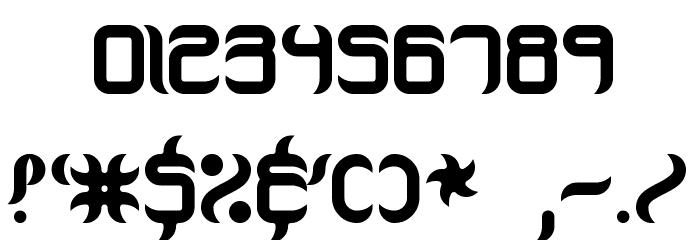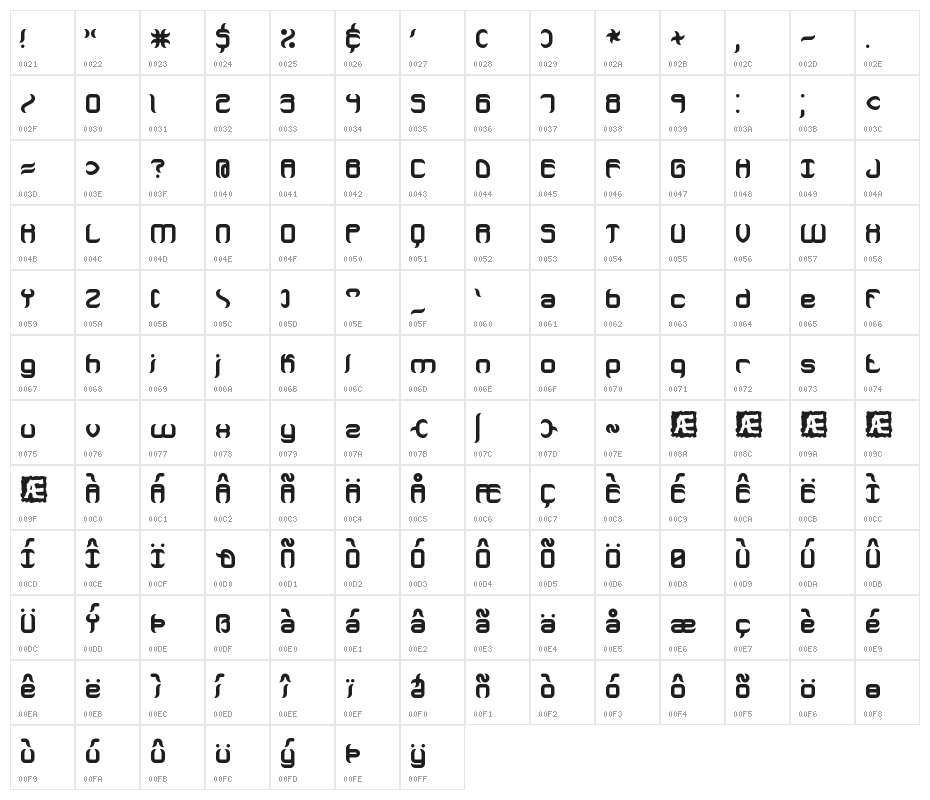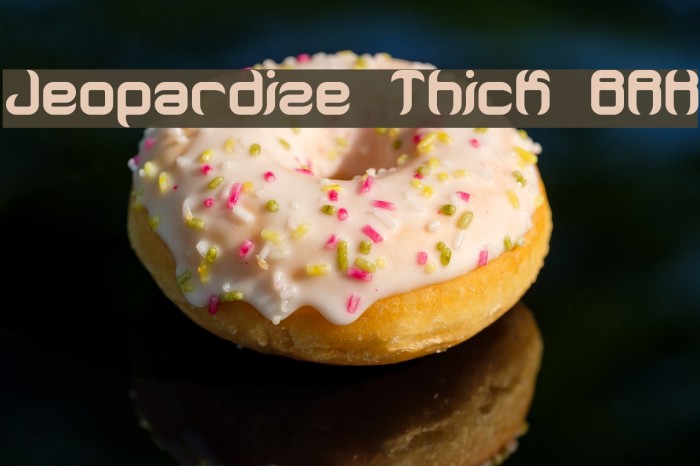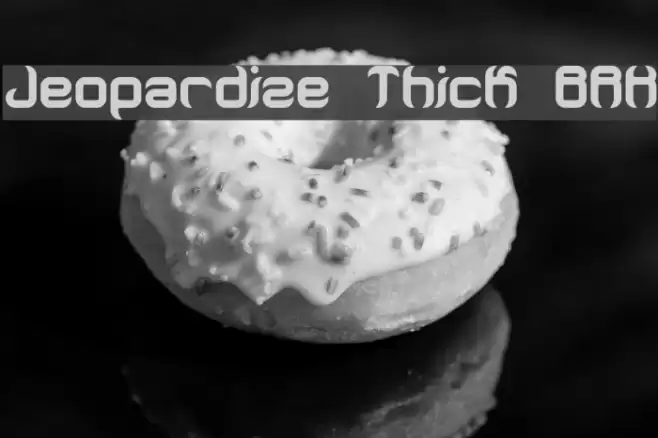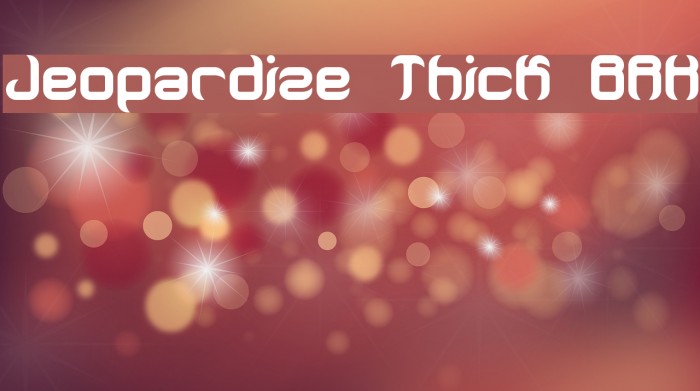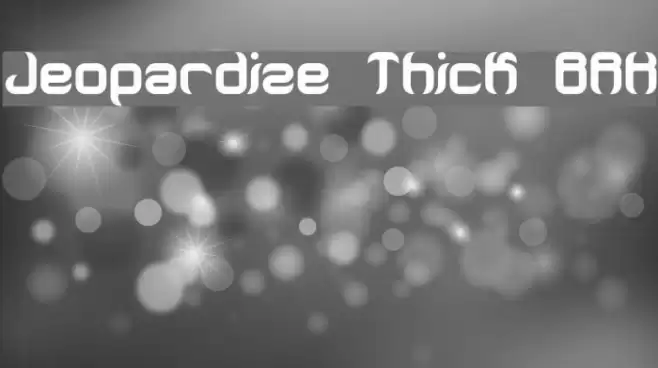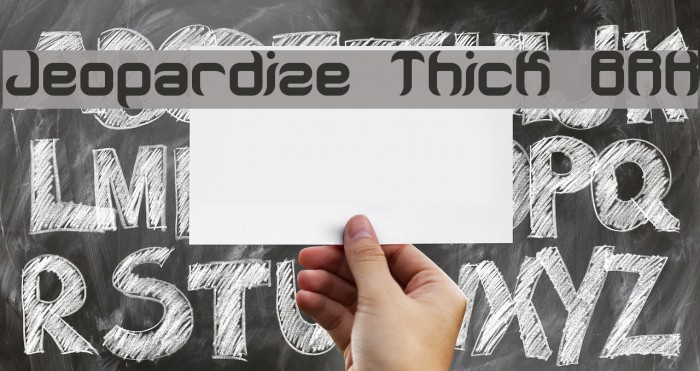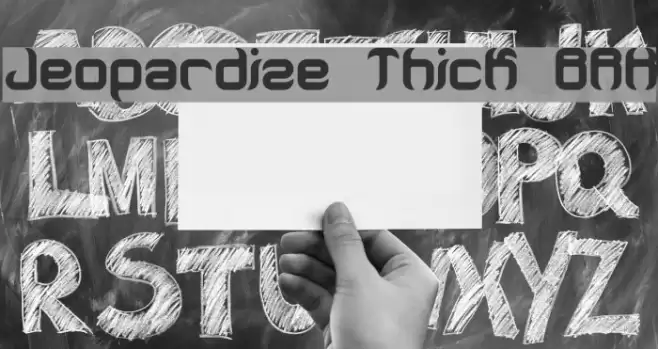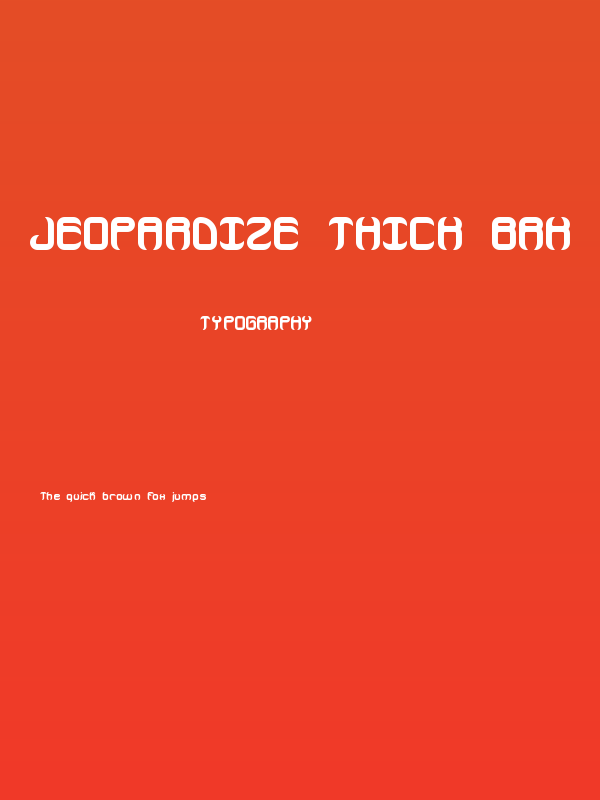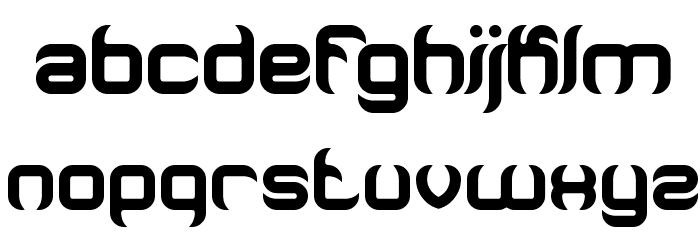
Jeopardize Thick BRK Font
Jeopardize Thick BRK Description
This font features a bold and thick design with a futuristic and geometric aesthetic. The characters are rounded with a consistent stroke width, giving it a cohesive and modern look. The uppercase and lowercase letters maintain a uniform style, while the numbers and special characters complement the overall design. The font's unique style makes it stand out, with its slightly condensed form and smooth curves. It's suitable for projects that require a strong visual impact, such as branding, headlines, or digital media. The font's distinctive appearance is both eye-catching and versatile, making it a great choice for creative and contemporary designs.
| Use Case | Headlines, Logos, Digital Media |
| Proposed Projects | Ideal for branding, headlines, digital media, and creative design projects. |